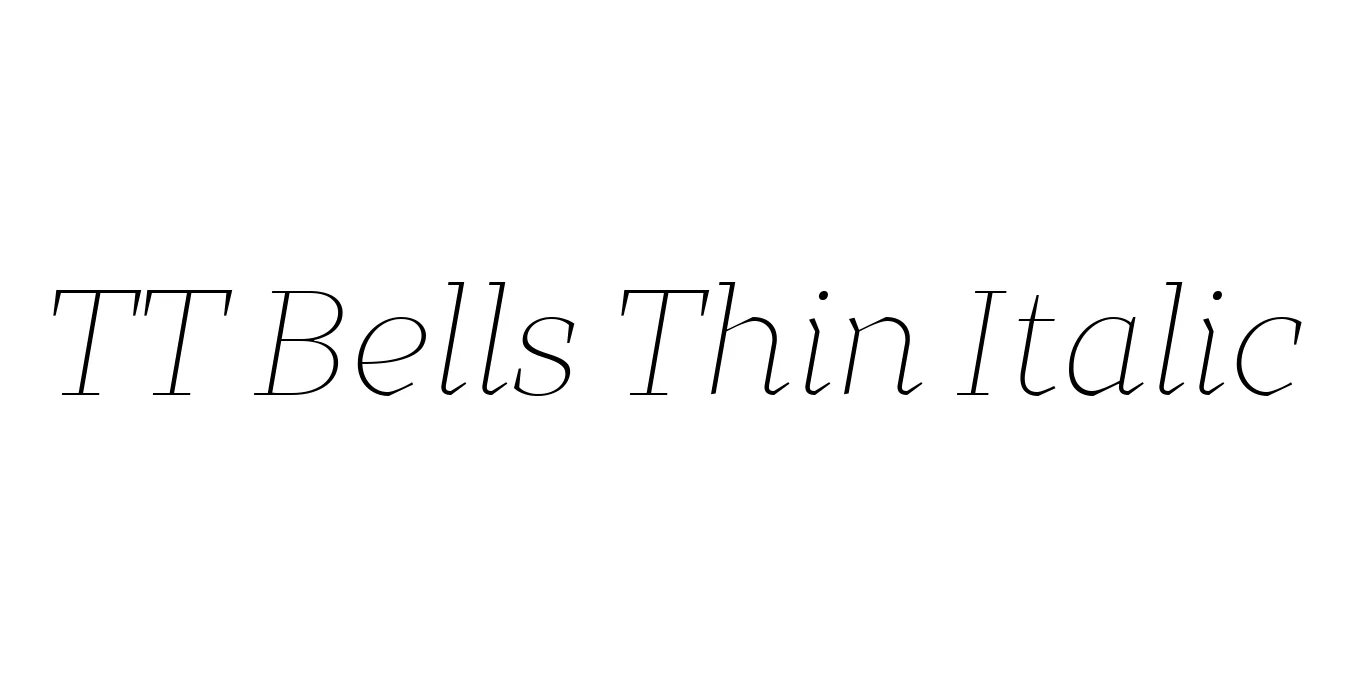
TT Bells Thin Italic
Designed by Ivan Gladkikh, TypeType
TT Bells Thin Italic is a sophisticated modern serif typeface that draws its inspiration from the classical proportions of Old Style fonts. Developed by the renowned TypeType foundry, this specific weight is characterized by its delicate, hair-thin strokes and a sharp, elegant slant that conveys a sense of high-end craftsmanship and lyrical movement. The font successfully bridges the gap between historical calligraphic traditions and the technical precision required for modern digital display.
With its high contrast and refined terminals, TT Bells Thin Italic is engineered to perform exceptionally well in contexts where elegance is the primary objective. It features a set of distinct glyphs that maintain clarity despite their thinness, making it a versatile choice for designers looking to impart a premium feel. Whether used for evocative headlines or subtle decorative elements, this font remains a staple for projects that demand a timeless, scholarly, yet contemporary aesthetic.
TT Bells Thin Italic Best Uses
Perfect for sophisticated magazine headers, pull quotes, and refined article titles.
Ideal for luxury fashion labels, high-end cosmetic brands, and boutique identity systems.
Adds a touch of grace to wedding invitations, formal certificates, and high-quality printed menus.